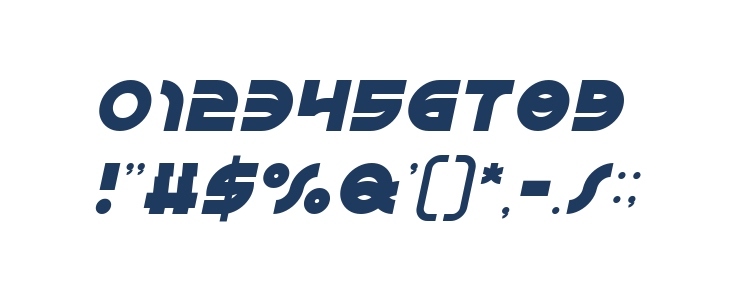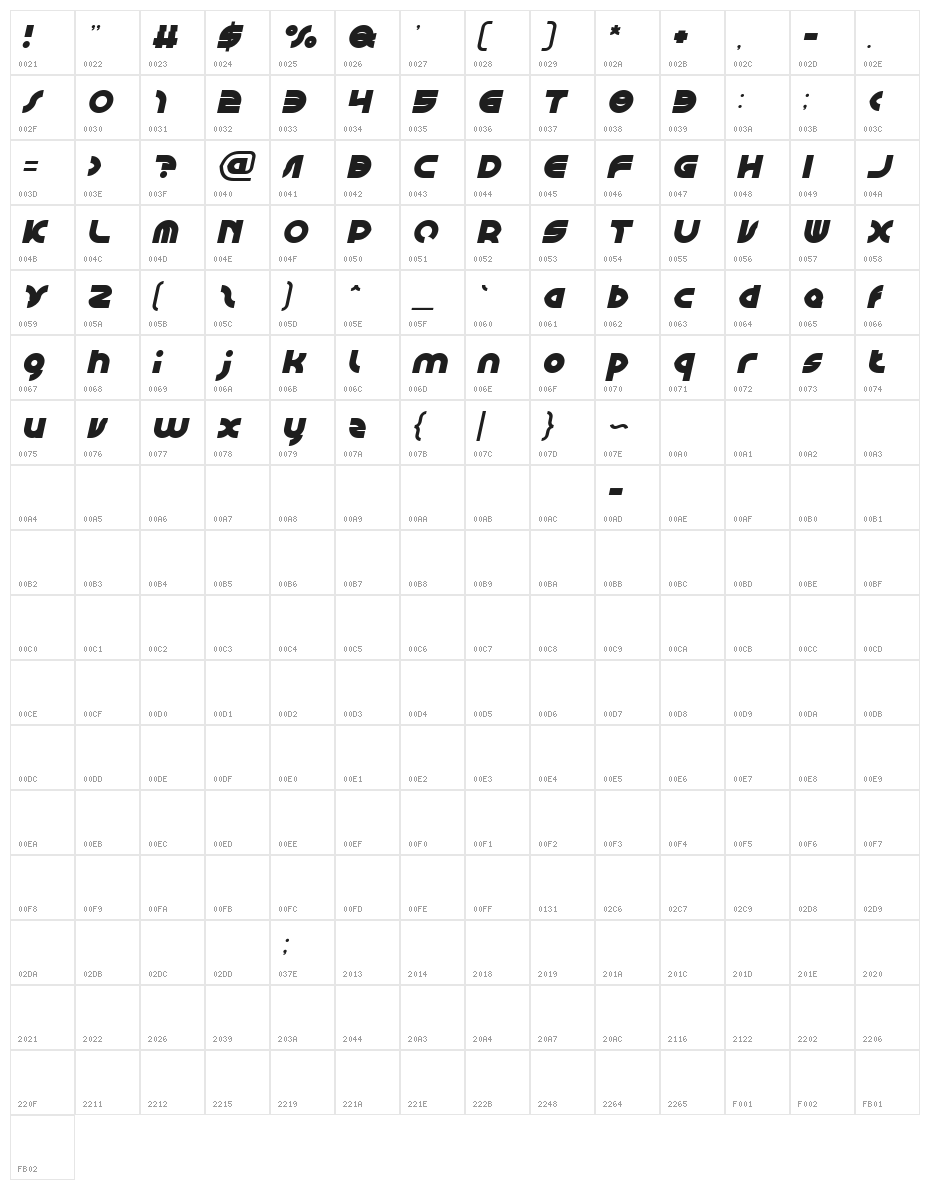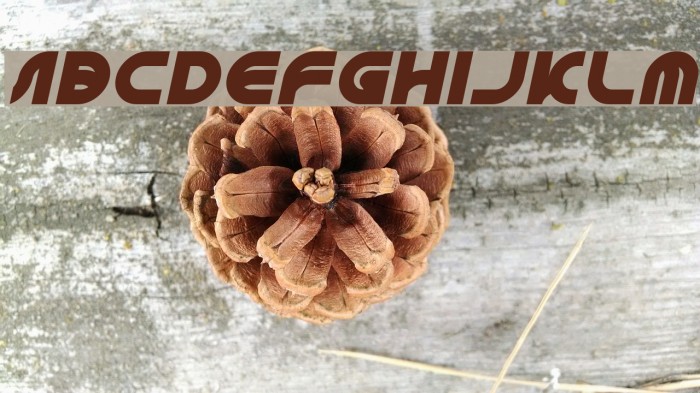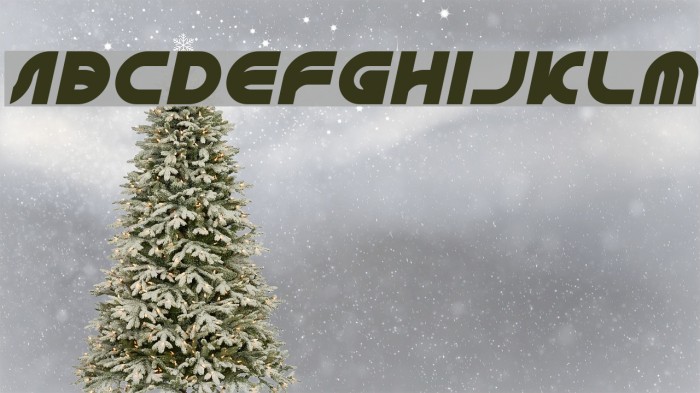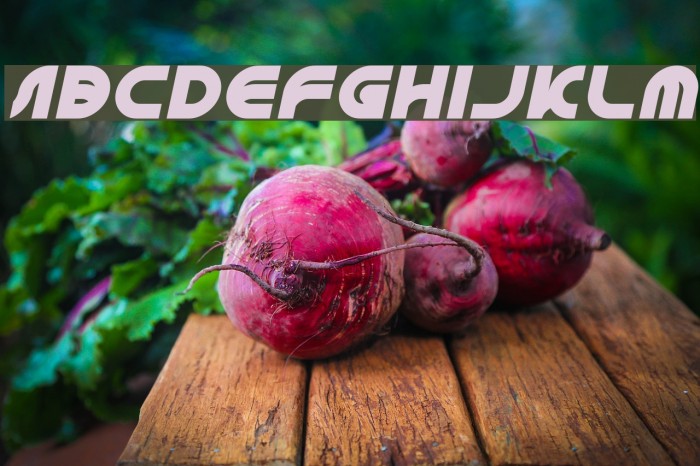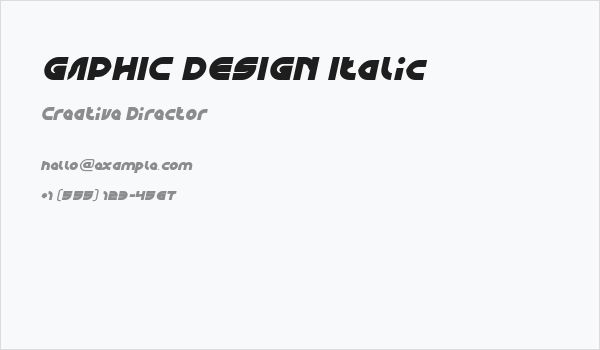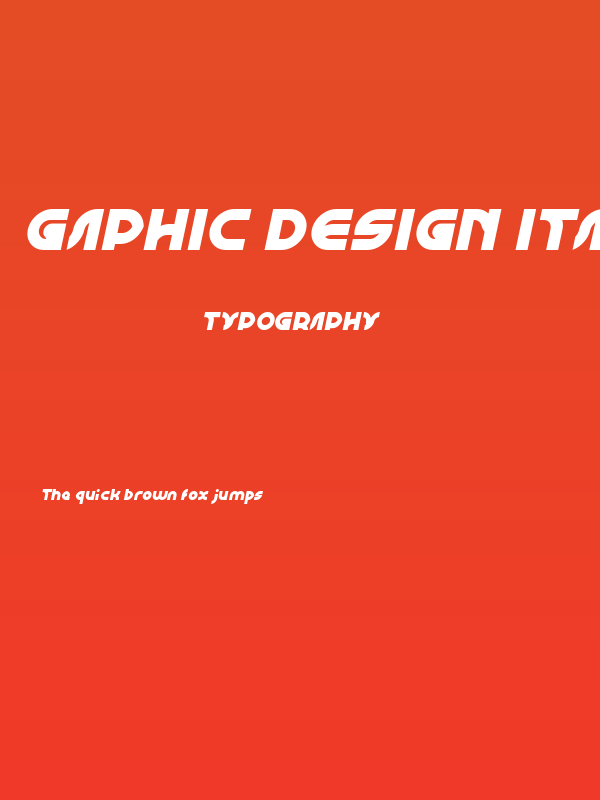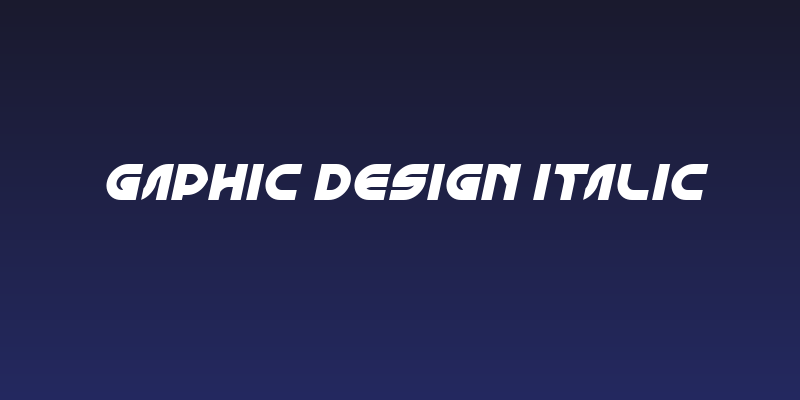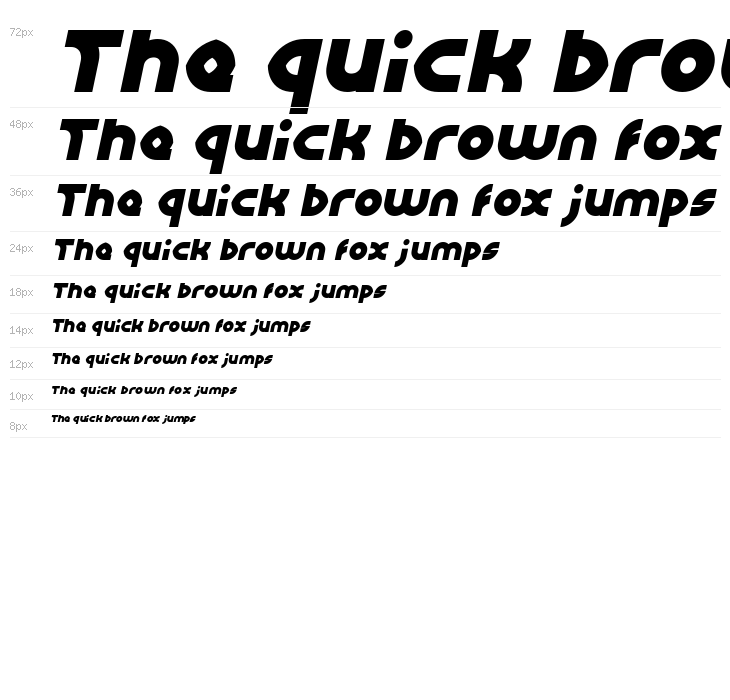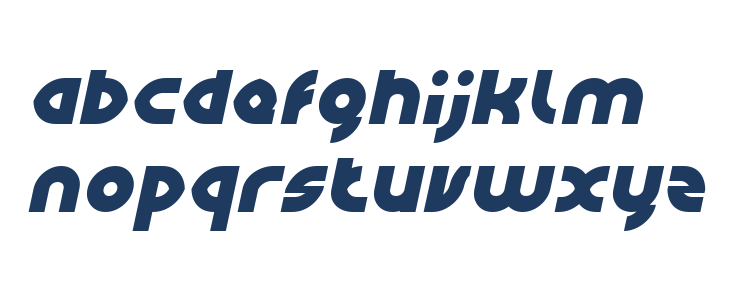
GAPHIC DESIGN Italic Font
GAPHIC DESIGN Italic Description
This font features a bold and dynamic style with a futuristic flair. The characters are italicized, giving them a sense of motion and energy. The strokes are thick and consistent, providing a strong visual impact. The design includes unique geometric shapes, particularly noticeable in the curves and angles of the letters. The numbers and special characters maintain this cohesive style, ensuring uniformity across all glyphs. The font's boldness and slanted orientation make it ideal for attention-grabbing designs.
| Overall Style | Futuristic, Dynamic |
| Proposed Projects | Ideal for sci-fi themed posters, modern branding, video game titles, and dynamic logos. |